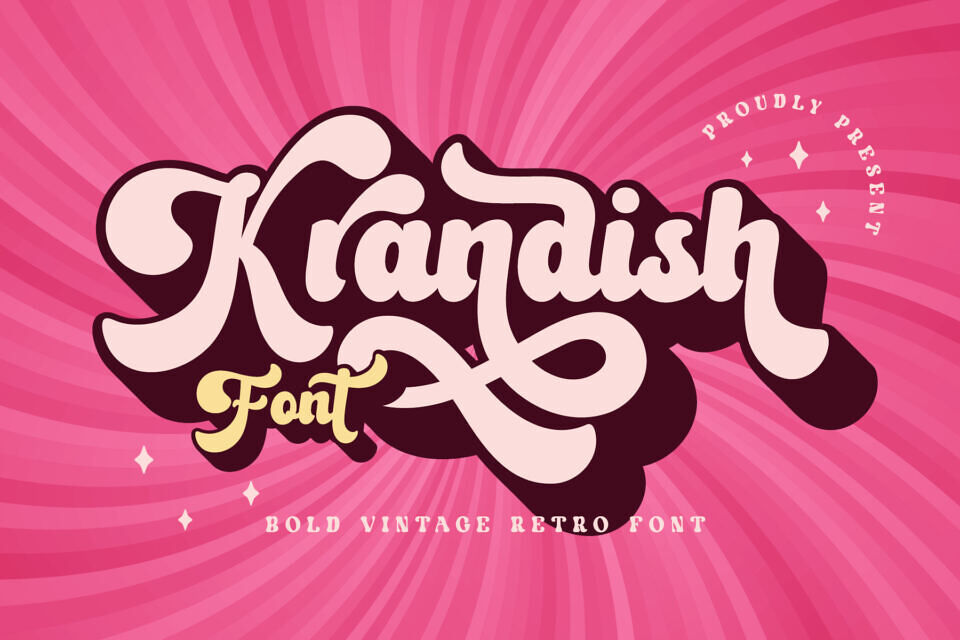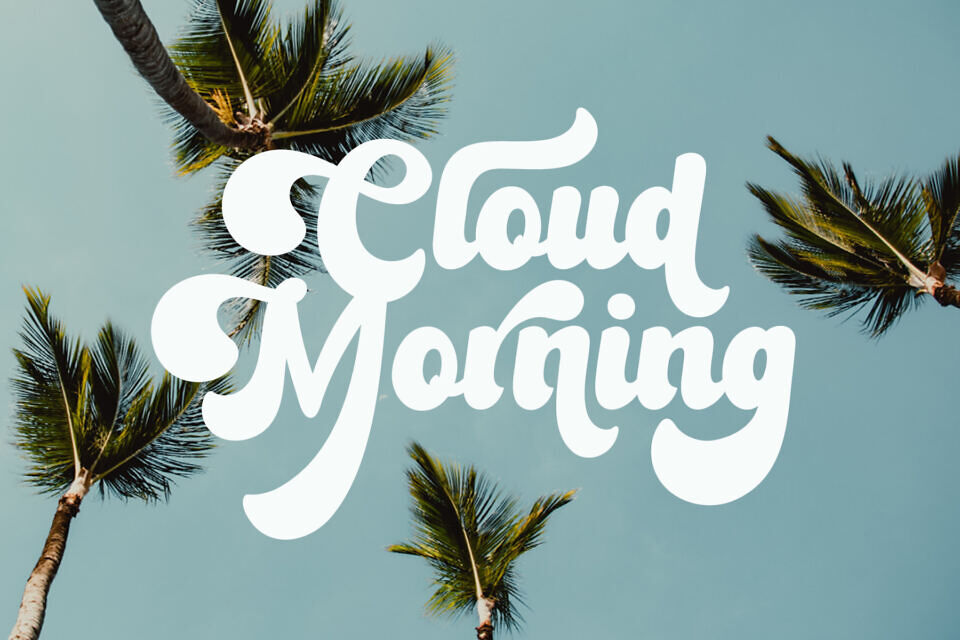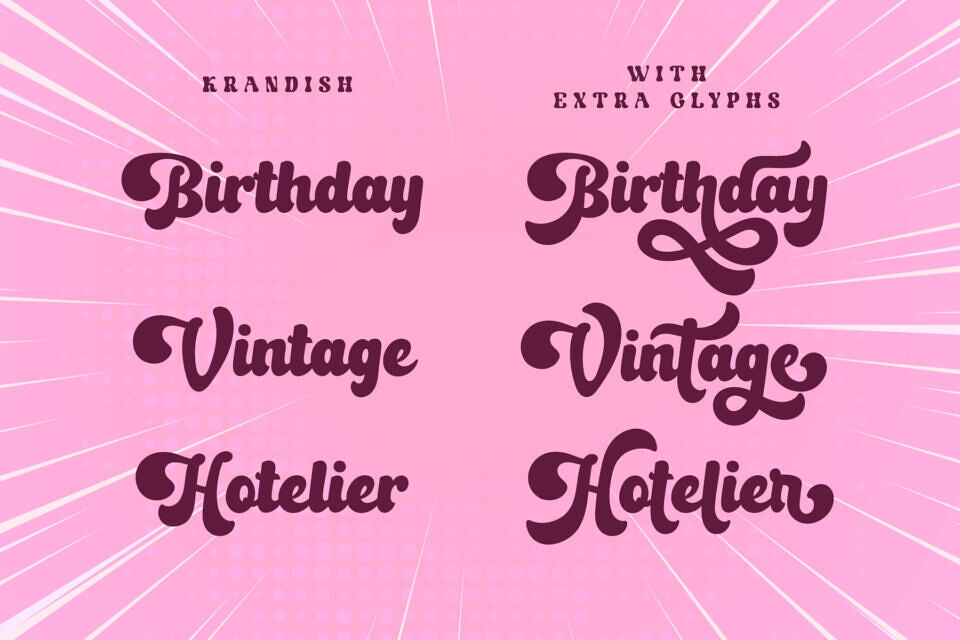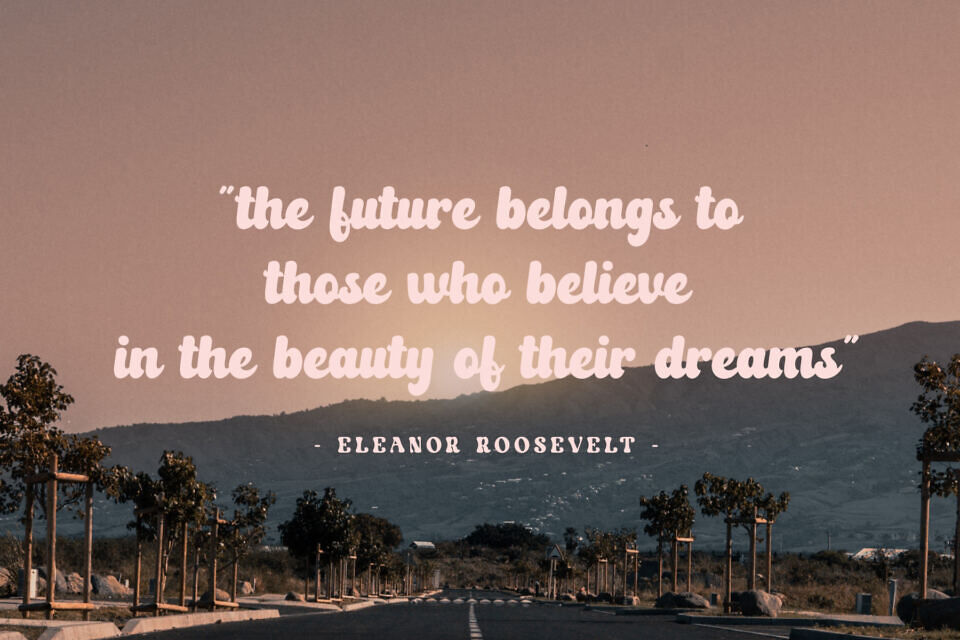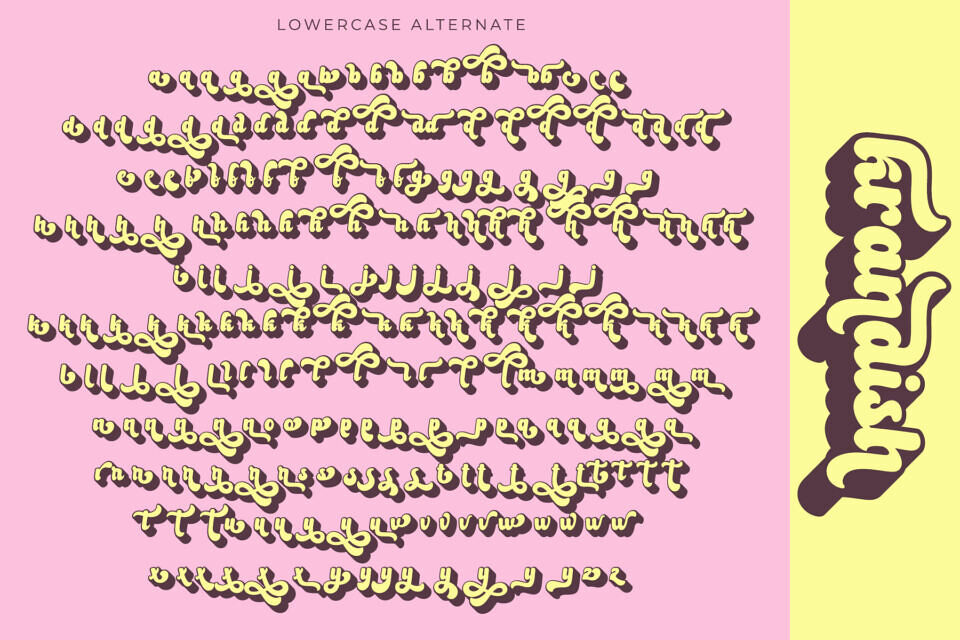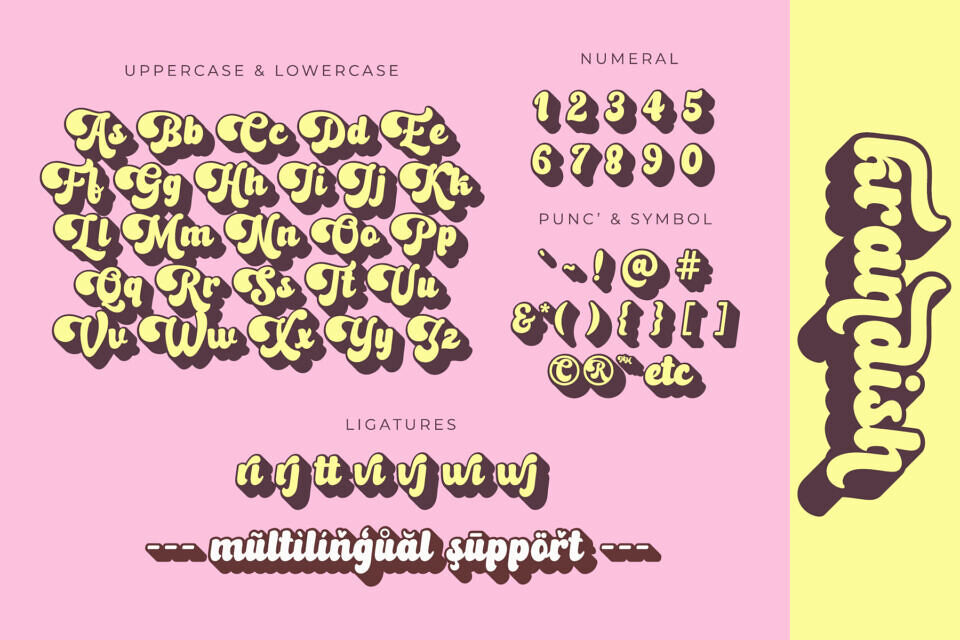
Krandish Font
Krandish is a retro script font with vintage vibes. This font is cute, whimsical, and playful. Krandish has lots of extra glyphs to give the designers more options for designing with this font. It also has extruded style to give shadow or layer to the regular one.
This font is perfect for any project, especially with vintage styles, such as logos, crafting, wedding invitation, branding, sticker, sublimation, quotes, and many more.